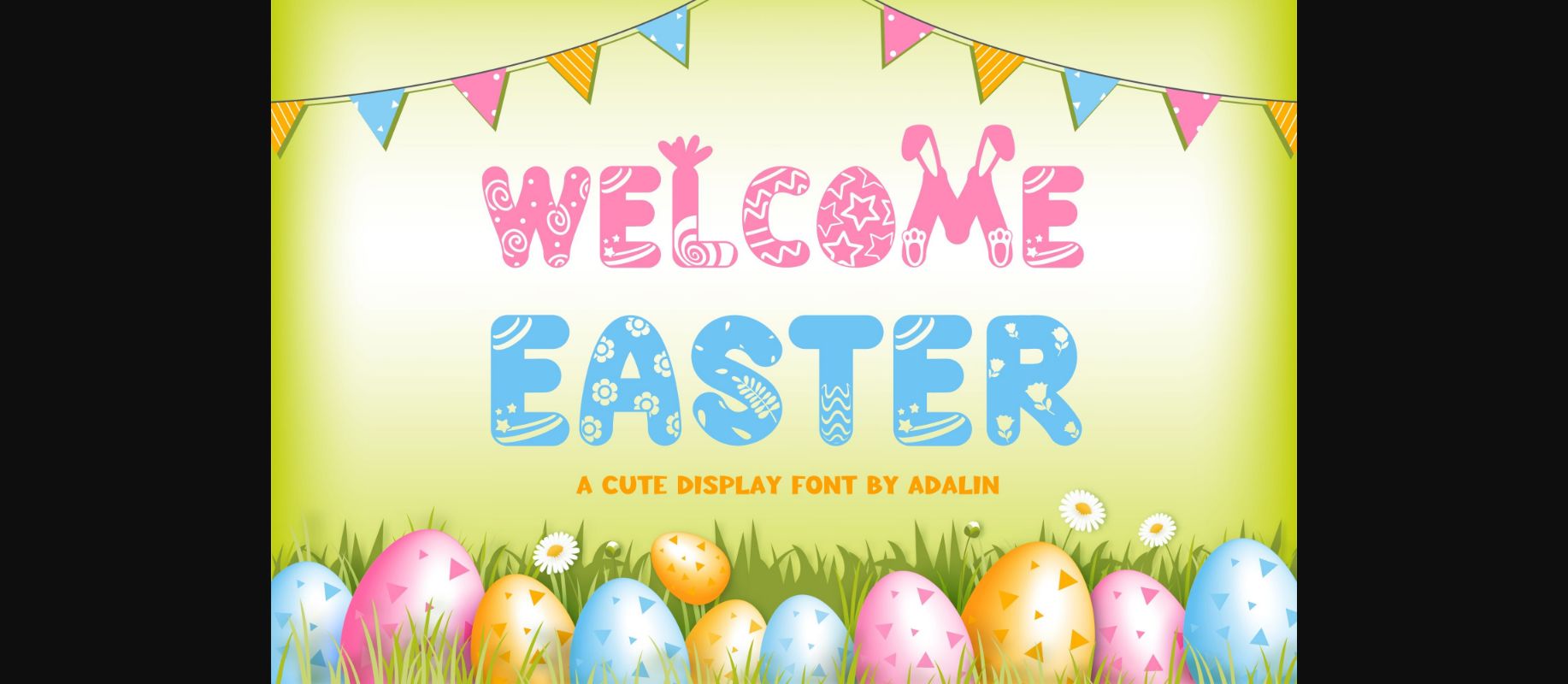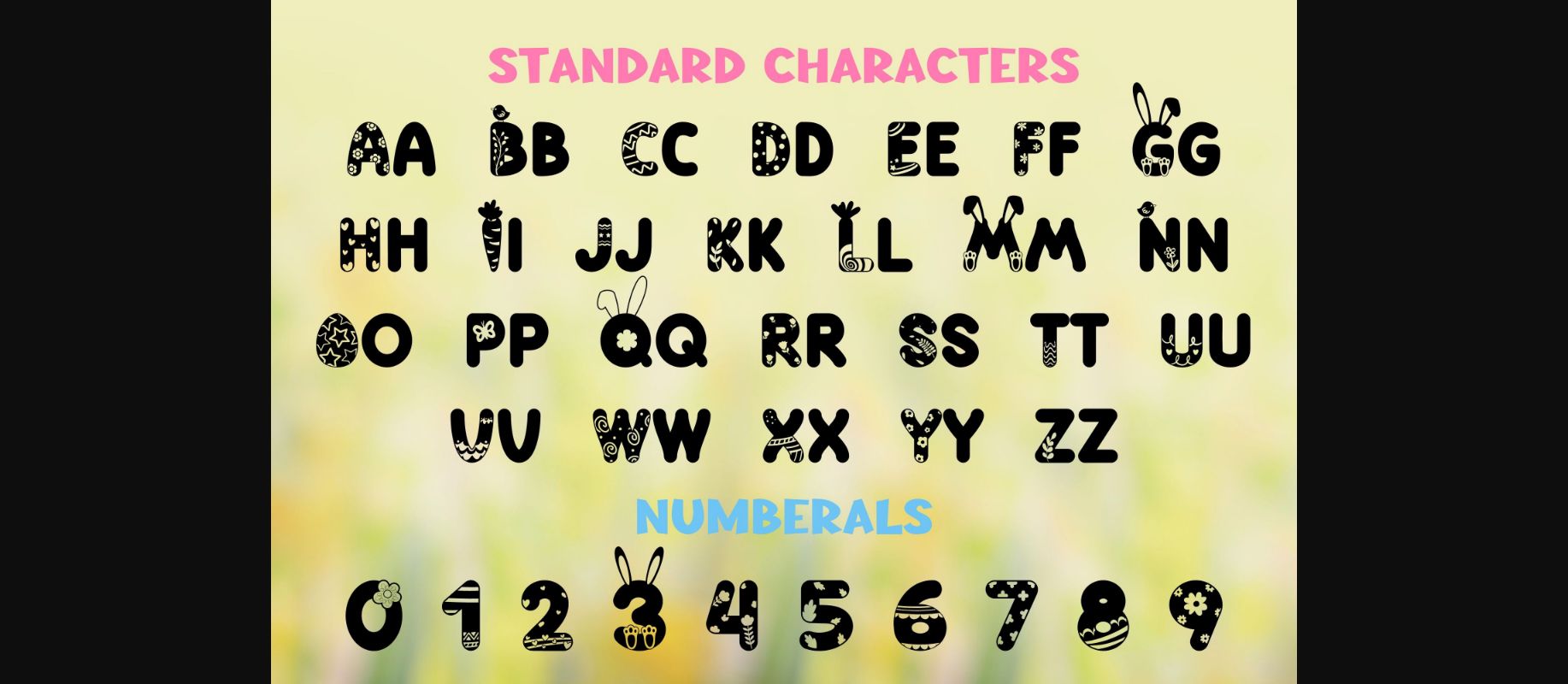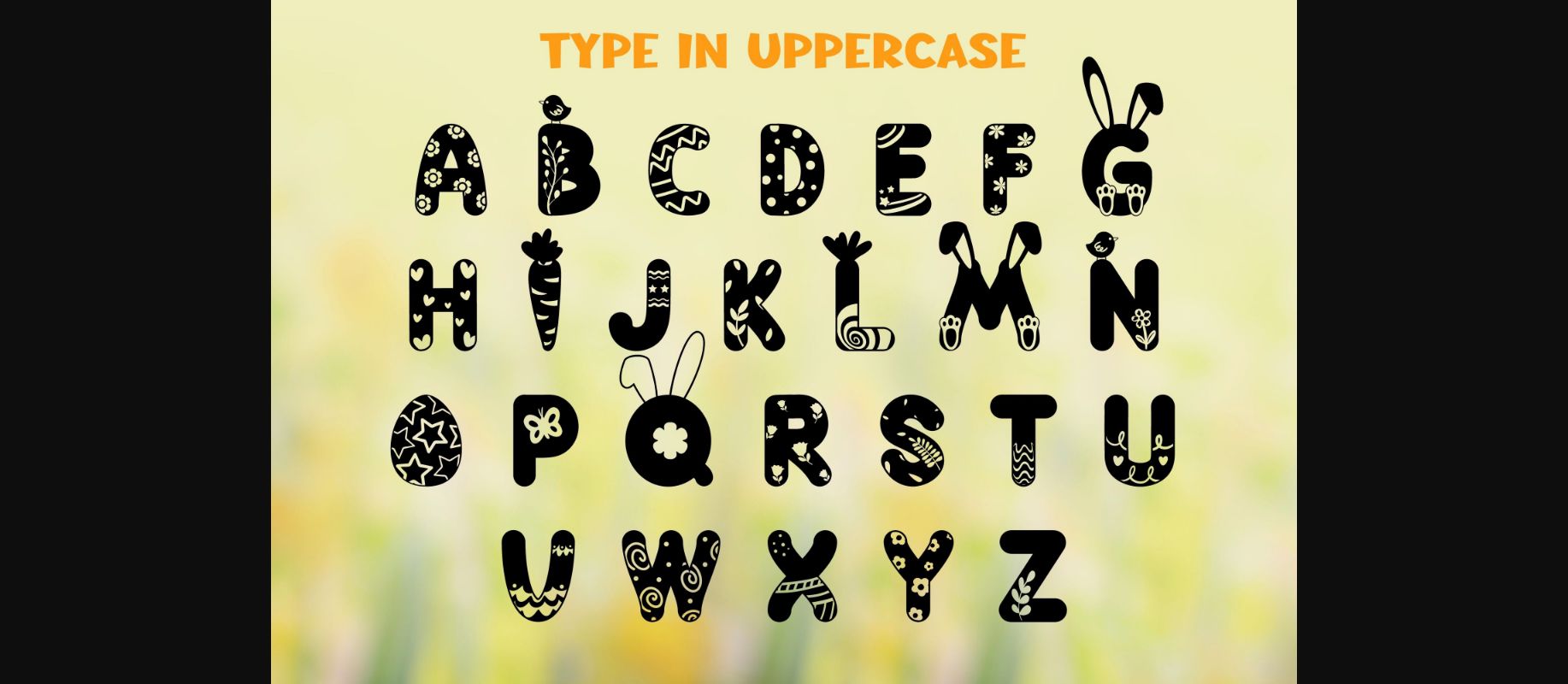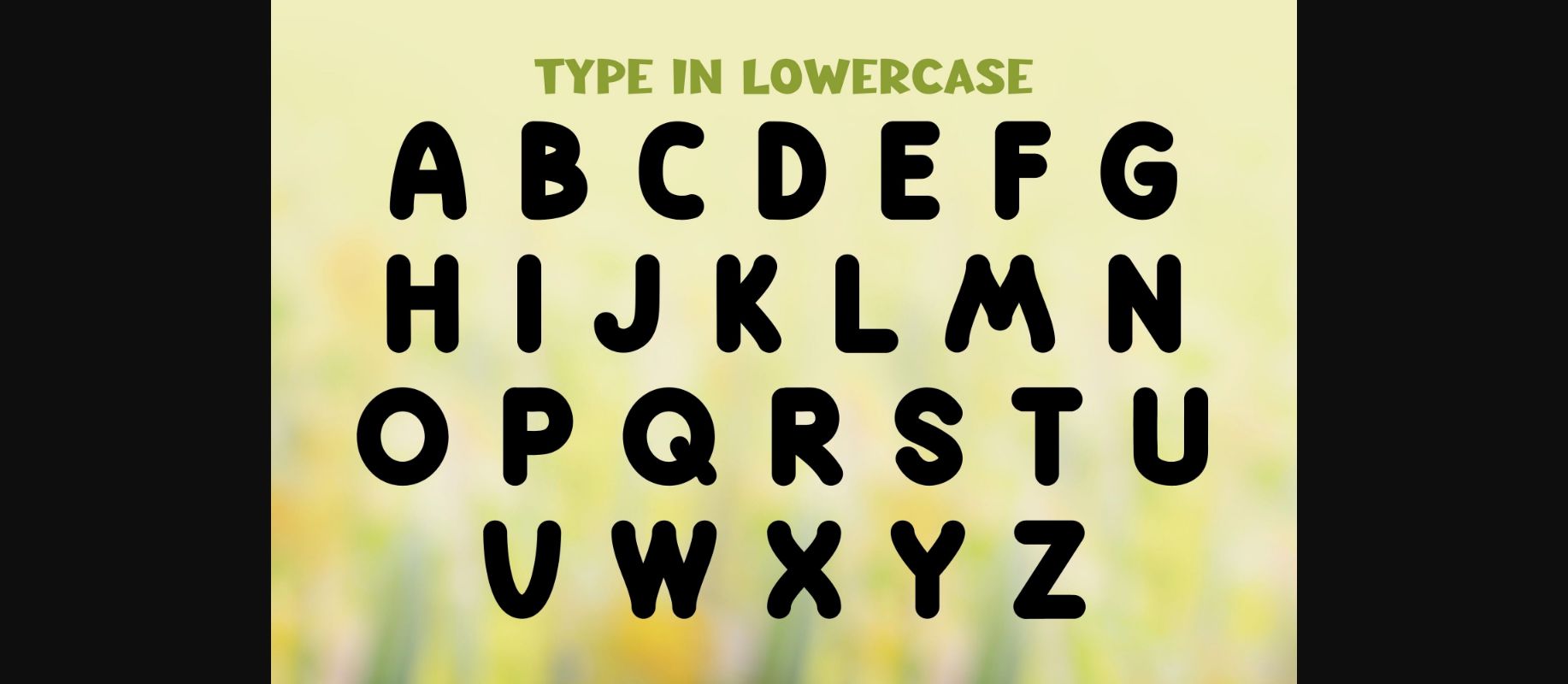
Welcome Easter Font
About Welcome Easter Font
Presenting Welcome Easter – a captivating display font elegantly merging enjoyment with sophistication. Imbued with a lighthearted and joyous allure, Welcome Easter imparts a distinctively appealing essence to your designs, infusing them with charisma and flair. Unleashing the full power of your creativity, this lively and audacious typeface effortlessly rejuvenates every artistic idea, morphing it from mundane to extraordinary. Enlist Welcome Easter to ignite your vibrant thoughts and translate your creative inspirations into reality.